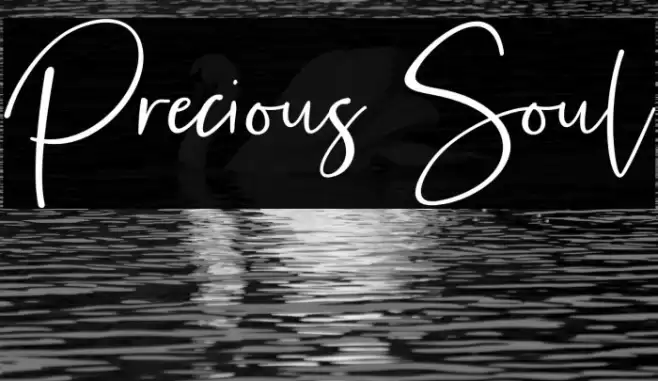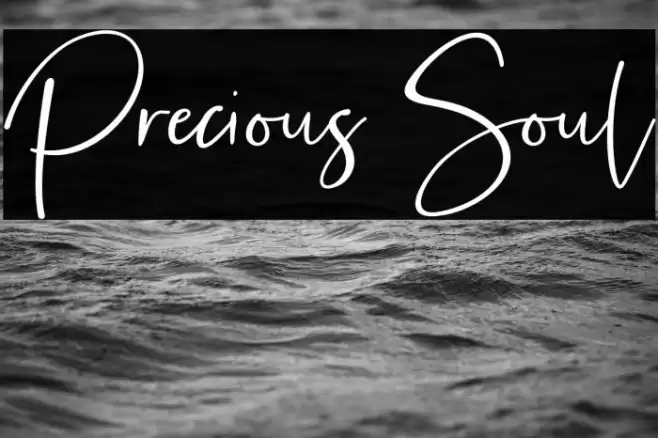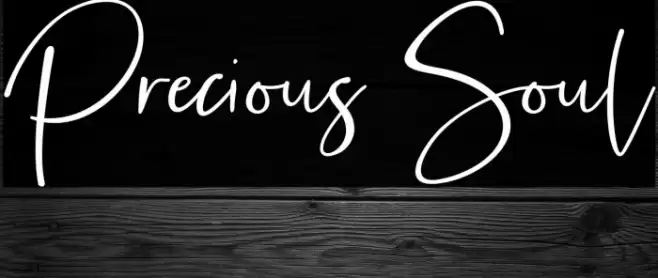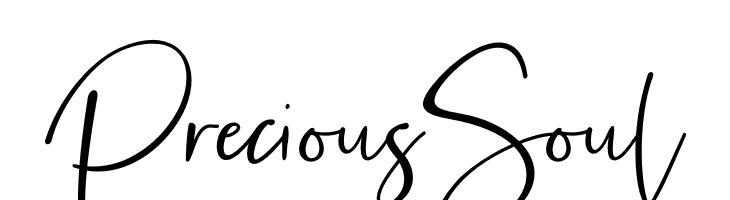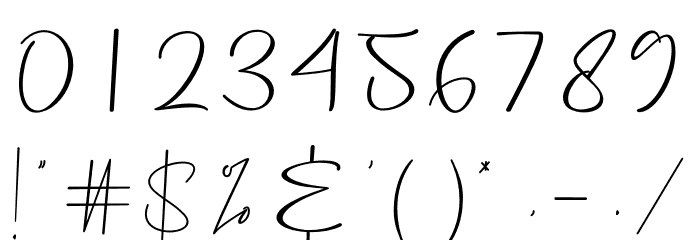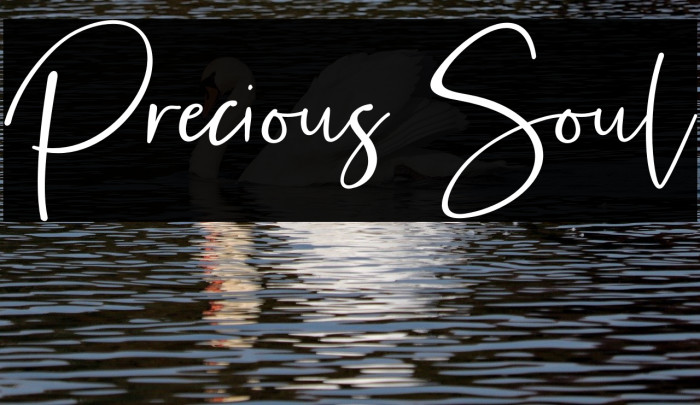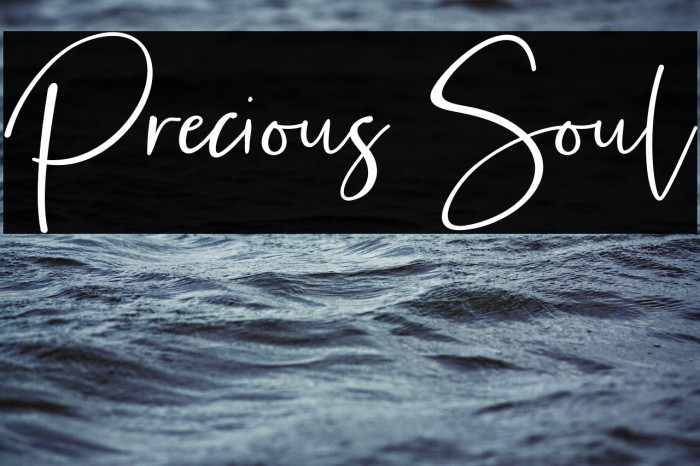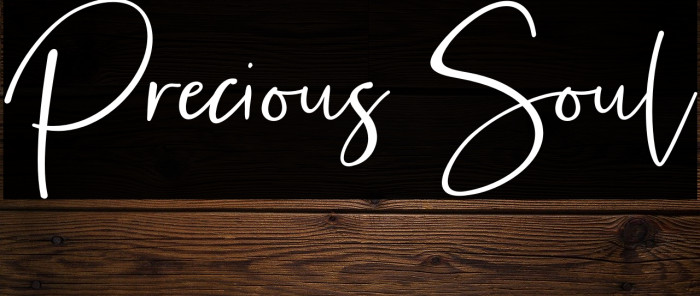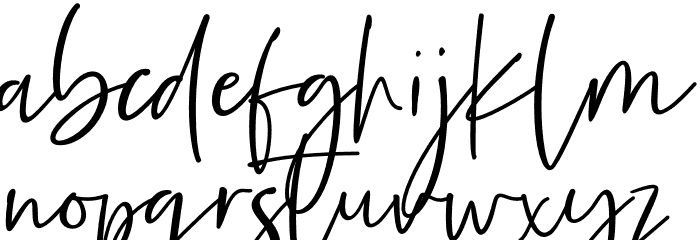
Precious Soul Font
Precious Soul Description
This font features a lively and expressive handwritten style, characterized by fluid and dynamic strokes. The uppercase letters are tall and slender, with a slight slant that adds a sense of movement and energy. The lowercase letters are more varied in height, with some characters extending below the baseline, creating a playful and informal appearance. The numerals are consistent with the overall style, maintaining the handwritten aesthetic. Special characters are integrated seamlessly, enhancing the font's versatility. This font's organic and personal touch makes it ideal for creative projects.
A lively, expressive handwritten font with fluid strokes and dynamic movement from Uncategorized fonts.